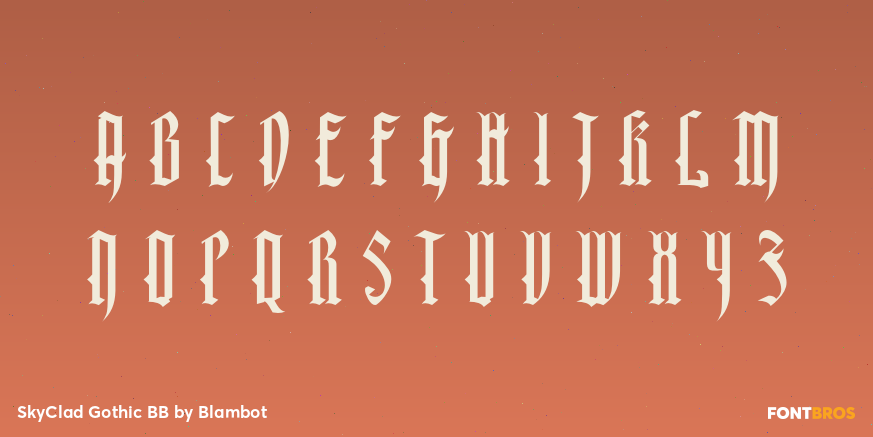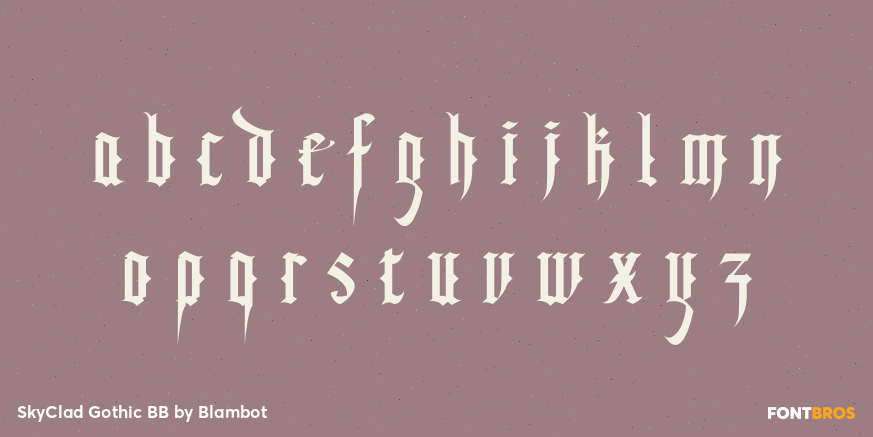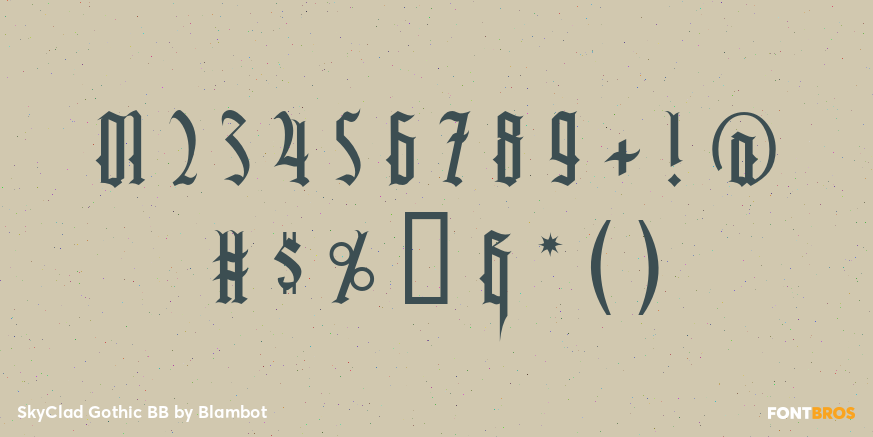
SkyClad Gothic BB
Font Family by Blambot
A traditional calligraphy-style gothic font with a twist. The uppercase letters were designed for easier readability than typical gothic text.
This gothic font can be used in all caps and still be extremely legible.